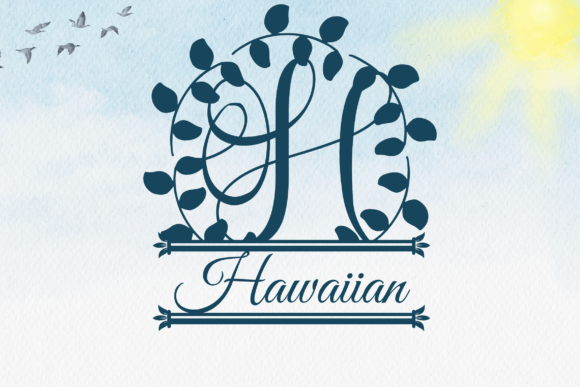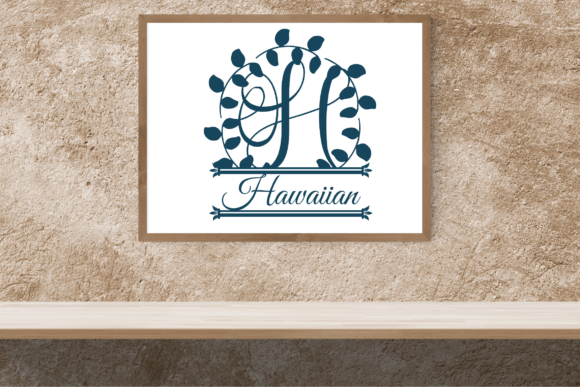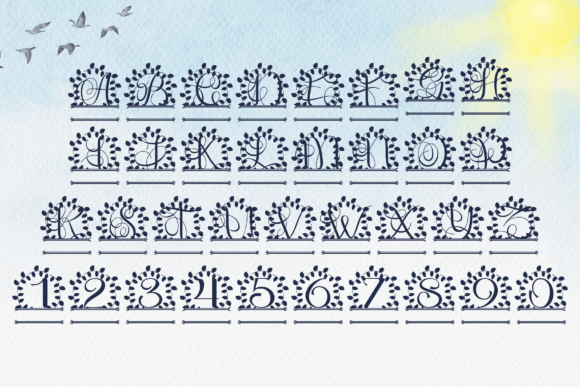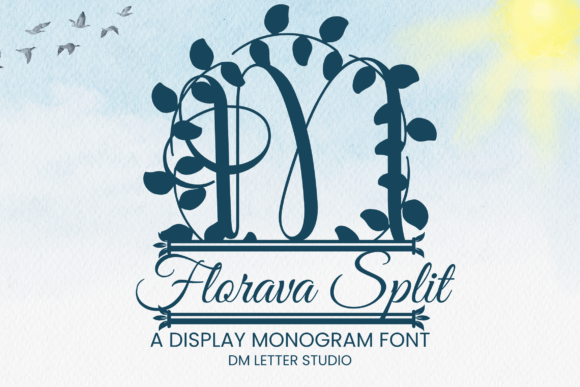
Introducing Florava Split Monogram Font: Elegance Meets Nature
In the world of typography, monogram fonts hold a special place for their ability to add a personal touch to any design. Among these, the Florava Split Monogram Font stands out for its unique blend of elegance and natural beauty. This font is not just a collection of letters; it’s an experience that brings together the sophistication of floral designs with the simplicity of a split monogram style. Whether you’re a designer looking for that perfect typographic element or a crafter aiming to personalize your projects, Florava Split Monogram is poised to become your go-to font.
What Makes Florava Split Monogram Font Special?
Florava Split Monogram Font is characterized by its flowing floral details and clean split design, making it an elegant choice for anyone looking to add a touch of sophistication to their work. Here are a few features that make it stand out:
- Elegant Floral Details: Each uppercase letter in the Florava Split Monogram Font is adorned with graceful botanical flourishes. These intricate details are not just decorative; they add a layer of depth and beauty to your text, making it truly unique.
- Clean Split Design: The font features a centered horizontal gap, which provides a clean and modern look. This gap is perfectly designed for inserting names, dates, or special messages, allowing for a high degree of personalization.
- Versatility: Florava Split Monogram Font is incredibly versatile. Its applications range from wedding stationery and branding to packaging and personalized crafts. This versatility makes it a valuable addition to any designer’s or crafter’s toolkit.
- Romantic and Nature-Inspired: The font’s design is deeply rooted in nature, with floral elements that evoke a sense of romance and elegance. This makes it particularly suitable for projects that require a touch of whimsy and charm.
Applications of Florava Split Monogram Font
The beauty of Florava Split Monogram Font lies in its wide range of applications. Here are some of the areas where this font can truly shine:
- Wedding Stationery: From wedding invitations to thank you cards, this font adds a romantic and elegant touch that sets the tone for any wedding celebration.
- Branding: For businesses that want to stand out with a unique and memorable brand identity, Florava Split Monogram Font can be a game-changer. Its distinctive look can help in creating a strong visual brand.
- Packaging: Whether you’re launching a new product or rebranding an existing one, custom packaging with this font can elevate your product’s presentation and make it more appealing to customers.
- Personalized Crafts: For crafters, this font offers endless possibilities. From personalized journals to custom home decor, Florava Split Monogram Font can add a professional and thoughtful touch to handmade items.
Tips for Using Florava Split Monogram Font
To make the most of Florava Split Monogram Font, consider the following tips:
- Pair with Complementary Fonts: While Florava Split Monogram Font is beautiful on its own, it can be even more striking when paired with complementary fonts. Choose simple, clean fonts that let the elegance of the monograms shine.
- Experiment with Colors: The font’s design works well with a variety of colors, but soft pastels, gold, and ivory can particularly enhance its romantic and elegant feel.
- Use for Highlighting: Instead of using the font for long texts, consider using it to highlight key information, such as names, dates, or special messages.
Florava Split Monogram Font is more than just a typographic style; it’s a design element that can transform your projects with its elegance and natural charm. Whether you’re working on a wedding invitation, a brand identity, or a personalized gift, this font offers a unique combination of sophistication and whimsy. With its flowing floral details and clean split design, Florava Split Monogram Font is set to become a favorite among designers and crafters looking to add a touch of romance and elegance to their work.
So, why settle for ordinary when you can make your designs extraordinary with Florava Split Monogram Font? Dive into the world of elegant typography and let your creativity bloom with this beautiful font.